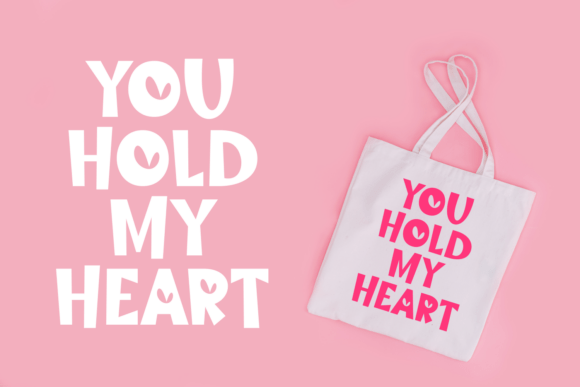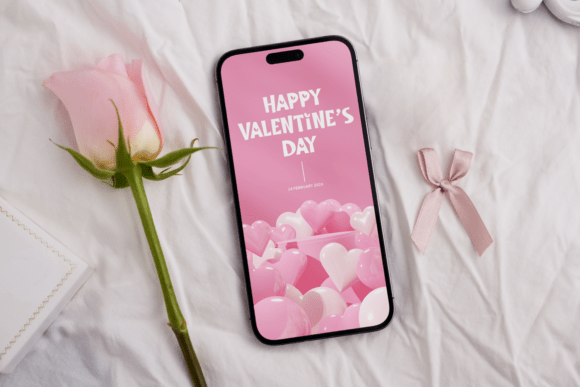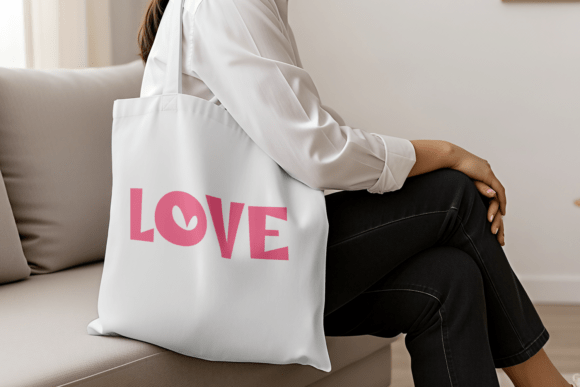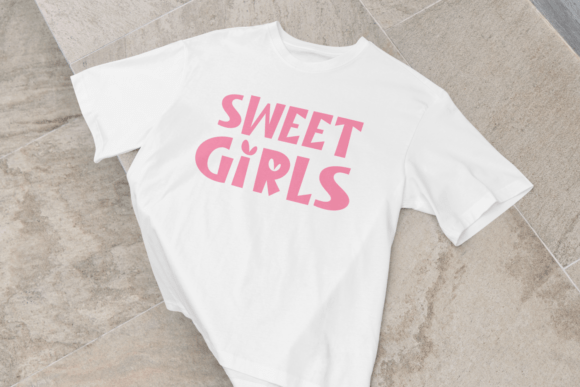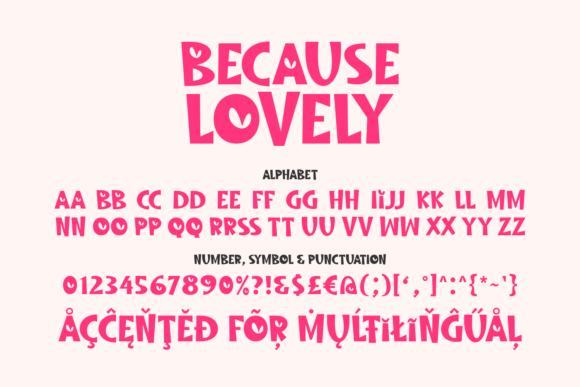
Introduction to Because Lovely Font
Do you remember the moment when a beautiful font suddenly sparks a creative idea in your mind? For designers, it’s a feeling of excitement and joy that can lead to a whole new project. For me, that moment was when I stumbled upon “Because Lovely Font”. This captivating display font has been my go-to choice for any project that requires a touch of whimsy and romance. Whether it’s a Valentine’s Day card or a wedding invitation, “Because Lovely Font” is the perfect design resource to convey love, affection, and joy.
As a high-quality font, “Because Lovely Font” boasts a clean and elegant look that’s perfect for a wide range of creative projects. From fashion apparel to literature, its versatility makes it a valuable asset for designers. Plus, with its transparent background, it’s easy to layer and combine with other design elements. And the best part? It’s available for free download, making it an accessible choice for designers of all levels.
With “Because Lovely Font”, you can add a touch of romance and whimsy to any design project. Its phenomenal multilingual support and trendy yet timeless look make it a must-have font for any designer. So why not give it a try and see how it can inspire your next creative project?
Key Features of Because Lovely Font
- Available in 2 font styles with multiple weights and sizes, perfect for adding depth to your design.
- Because Lovely Font is a unique and versatile font that can be used for various design elements, such as headings, titles, and body text.
- Perfect for designers, artists, and writers who need a high-quality font for their creative projects.
Honest Review: Because Lovely Font
As a designer, I’m always on the lookout for high-quality design resources that can elevate my creative projects. Recently, I stumbled upon Because Lovely Font, and I’m excited to share my thoughts on this free download.
What works well is the font’s versatility and flexibility. It comes in a range of weights, from light to bold, making it perfect for everything from headings to body text. The font’s clean and modern design also makes it ideal for digital projects, such as social media graphics and website design.
✨ I was also impressed by the font’s transparent background, which allows for seamless integration with any design element. This feature is particularly useful when working with complex compositions or layered designs.
However, I did encounter some limitations. The font’s limited character set may not be suitable for projects that require a wide range of special characters or languages. Additionally, the font may not be ideal for print projects, as it can appear pixelated at larger sizes.
Overall, I’m pleased with Because Lovely Font and would recommend it to designers working on digital projects. While it may have some limitations, its high-quality design and versatility make it a valuable addition to any design resource library.
- High-quality design suitable for digital projects
- Range of weights for flexibility
Because Lovely Font
Become a part of a creative project with Because Lovely Font, a high-quality design resource perfect for any occasion. This beautiful font is available for free download with a transparent background, making it easy to integrate into your design.
Because Lovely Font is perfect for creating invitations, social media graphics, and other design projects. Its elegant and modern design makes it a great choice for weddings, baby showers, and other special occasions.
Tips for Getting the Most Out of Because Lovely Font
To get the most out of Because Lovely Font, experiment with different font sizes, colors, and combinations to create unique and eye-catching designs. You can also pair it with other design elements, such as graphics and images, to add visual interest to your project.
Alternatives to Because Lovely Font
Lato Font is a high-quality, sans-serif typeface ideal for design projects that require a clean and modern look. It comes with a transparent background, making it suitable for creative projects that involve layered designs. Lato Font is a great alternative to Because Lovely Font when you need a font with a more subtle and elegant appearance.